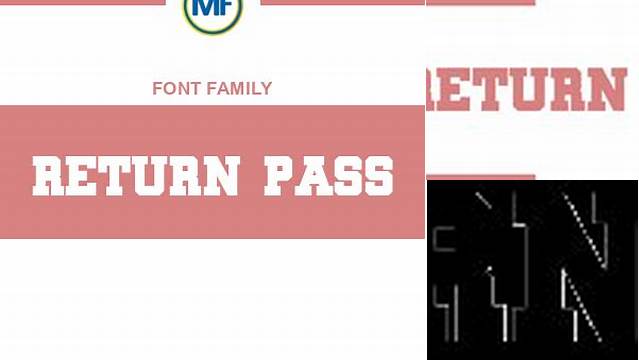
In today's digital age, typography plays a pivotal role in visual communication. Choosing the right font can significantly impact how your message is received, whether you're designing a logo, creating marketing materials, or working on a website. Among the myriad of fonts available, the Return Pass font has garnered attention for its unique style and versatility. This article will delve into the specifics of the Return Pass font, exploring its characteristics, applications, and, most importantly, where to find it for free download. Whether you're a seasoned designer or just starting, understanding the nuances of this font can be a valuable asset in your creative toolkit.
What is the Return Pass Font?
The Return Pass font is characterized by its distinctive, often sporty or retro-inspired design. Typically, it features bold strokes, clean lines, and a dynamic aesthetic that makes it suitable for various applications. Imagine fonts used on vintage sports jerseys or classic arcade games; Return Pass often evokes a similar feel. Its visual appeal lies in its ability to grab attention while maintaining readability, making it a favorite for headlines, banners, and other display purposes. Understanding its characteristics is the first step in leveraging its potential for your projects. Many designers appreciate its ability to add a touch of nostalgia or a sense of energy to their work, depending on how it's used. Return Pass isn't just a single font but often refers to a style of font, so variations exist, each with its own unique flair. This variety makes it adaptable to different design needs.
Key Characteristics of Return Pass Fonts
When diving into the Return Pass font family, understanding its key characteristics is essential for effective use. Typically, these fonts showcase a bold and assertive stance, making them ideal for grabbing attention. You'll often find that Return Pass fonts feature a condensed letterform, meaning the letters are narrower than standard fonts, allowing for more text to fit into a given space. This is particularly useful in designs where space is limited but impact is crucial. Another common characteristic is the use of strong, geometric shapes. Letters are often constructed with precise angles and curves, lending a technical and modern feel, even with a retro vibe. Many Return Pass fonts also incorporate stylistic alternates or ligatures, giving designers more options to customize the look and feel of their text. For instance, certain letter combinations might be automatically connected to create a smoother, more visually appealing word. Furthermore, the spacing between letters (kerning) and lines (leading) is often carefully considered to ensure readability and visual balance. These details contribute to the overall polished and professional appearance of Return Pass fonts, making them a versatile choice for a wide range of design projects. Whether you're working on branding, advertising, or digital art, a solid understanding of these characteristics will help you wield the Return Pass font to its fullest potential.
Applications of the Return Pass Font
The versatility of the Return Pass font makes it suitable for a wide array of design applications. Its bold and dynamic nature is particularly well-suited for branding projects, where it can help create a memorable and impactful visual identity. Imagine a sports team using a Return Pass font for their logo or merchandise; the font's inherent energy and retro feel can perfectly capture the spirit of the team. Similarly, it's an excellent choice for advertising campaigns, especially those targeting a younger audience or aiming for a vintage aesthetic. The font's readability and attention-grabbing qualities make it ideal for headlines and taglines. In the realm of web design, Return Pass fonts can add a unique touch to headers, banners, and calls to action. However, it's essential to use them sparingly to avoid overwhelming the user. For print materials, such as posters, flyers, and brochures, Return Pass fonts can help create visually appealing layouts that stand out from the crowd. They also work well for creating custom typography for t-shirts and other apparel. Beyond commercial applications, Return Pass fonts can be used for personal projects like invitations, cards, and social media graphics. Their flexibility allows you to express your creativity and add a touch of personality to your designs. By understanding the diverse applications of the Return Pass font, you can effectively leverage its strengths to enhance your visual communication.
Tips for Using Return Pass Fonts Effectively
Once you've secured your Return Pass font, the next step is to use it effectively in your design projects. Here are some tips to help you make the most of this versatile typeface. First, consider the context of your design. Return Pass fonts typically have a bold and assertive personality, making them ideal for headlines, banners, and other prominent display elements. However, they may not be the best choice for body text, as their distinctive style can become tiring to read in large blocks. Pair your Return Pass font with a simpler, more neutral font for body text to ensure readability and visual balance. Experiment with different font weights and styles to find the perfect combination for your project. Pay attention to the spacing between letters (kerning) and lines (leading) to optimize readability and visual appeal. Adjusting these settings can significantly impact the overall look and feel of your text. Use color strategically to enhance the impact of your Return Pass font. Bold colors can complement the font's assertive nature, while more subtle colors can create a sophisticated and understated look. Be mindful of the overall design aesthetic and choose colors that align with your brand or project goals. Avoid overusing the Return Pass font. While it's tempting to use it for every element of your design, doing so can create a cluttered and overwhelming effect. Instead, use it sparingly to highlight key messages and create visual interest. By following these tips, you can effectively leverage the power of Return Pass fonts to create visually stunning and impactful designs.
Alternatives to Return Pass Font
If you're unable to find the exact Return Pass font or are looking for similar styles, numerous alternatives can capture a similar aesthetic. Exploring these alternatives can broaden your typographic palette and provide fresh inspiration for your designs. One popular alternative is the Bebas Neue font family, known for its clean, sans-serif design and tall, narrow letterforms. Bebas Neue shares the Return Pass font's boldness and readability, making it a versatile choice for headlines and display text. Another excellent option is Montserrat, a geometric sans-serif font with a modern and sophisticated look. Montserrat offers a wide range of weights and styles, allowing you to create a variety of typographic treatments. For a more retro-inspired feel, consider using Luckiest Guy, a playful and eye-catching font with a vintage cartoon aesthetic. Luckiest Guy shares the Return Pass font's energy and personality, making it a great choice for projects that require a touch of whimsy. If you're looking for a sporty and dynamic font, Oswald is a solid choice. Oswald's condensed letterforms and bold strokes evoke a sense of speed and motion, making it ideal for sports-related designs. Finally, Raleway offers a more elegant and refined alternative to the Return Pass font. Raleway's thin and delicate letterforms create a sophisticated and modern look, perfect for projects that require a touch of class. By exploring these alternatives, you can expand your typographic options and find the perfect font to complement your design vision.